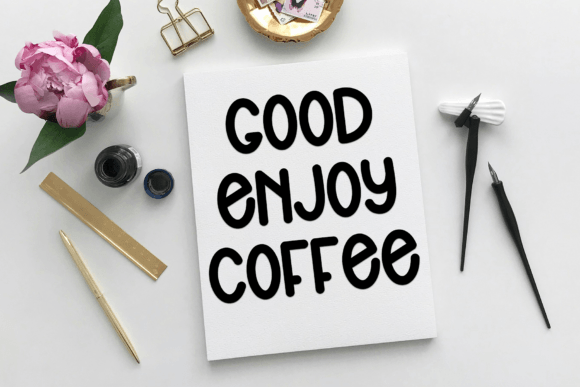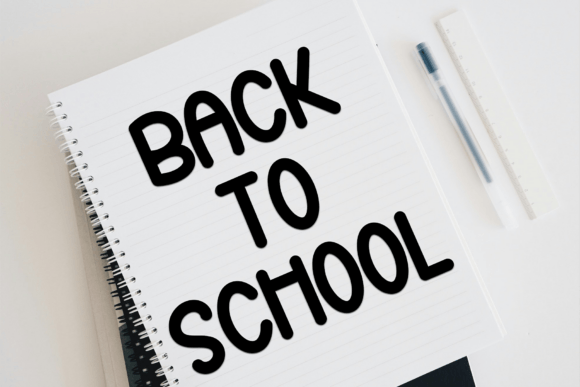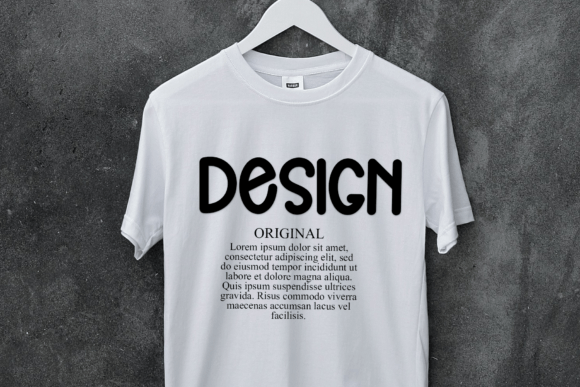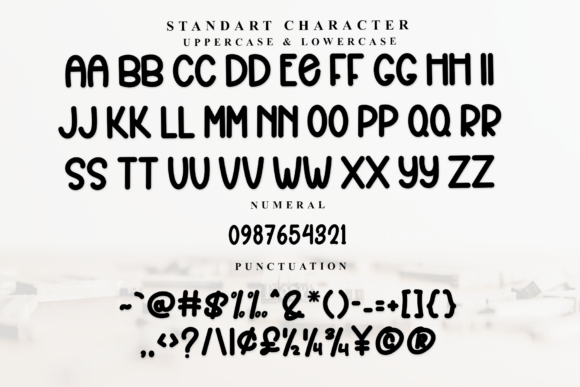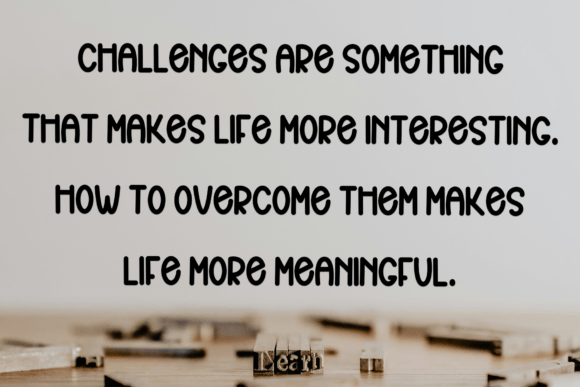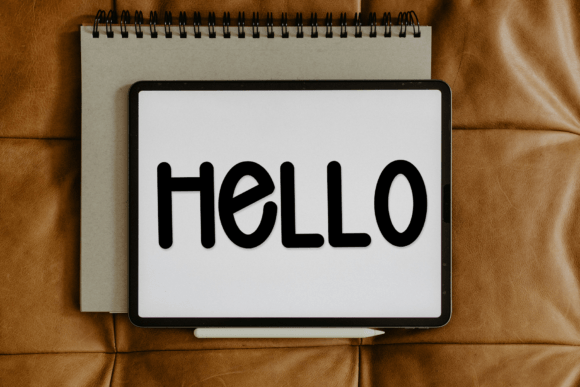
Introducing Conten Creator Font: Elevate Your Designs with Timeless Elegance
In the realm of design, typography plays a pivotal role in conveying messages, evoking emotions, and creating lasting impressions. Among the myriad of fonts available, Conten Creator stands out as a beacon of sophistication and modernity. This trendy handwritten font, with its roots in timeless classic calligraphy, is poised to revolutionize the way designers and crafters approach their projects.
The Essence of Conten Creator Font
Conten Creator is not just a font; it’s an experience. Inspired by the elegance of classic calligraphy, it brings a contemporary atmosphere to the table, making it perfect for designers who seek to infuse their work with a touch of class and sophistication. Its impeccable form ensures that it is versatile enough to be used across various design projects, from branding and advertising to packaging and digital media.
Key Features of Conten Creator
- Trendy and Modern: Despite being inspired by classic calligraphy, Conten Creator boasts a modern look that will make your designs stand out in today’s fast-paced digital landscape.
- Handwritten Elegance: The font’s handwritten nature adds a personal touch to any project, making it more relatable and engaging to the audience.
- Versatility: Conten Creator’s impeccable form and elegant strokes make it suitable for a wide range of applications, from luxury branding to creative crafting.
- Easy to Read: The clarity of the font ensures that your message is conveyed effectively, making it perfect for both digital and print media.
Applications of Conten Creator Font
The versatility of Conten Creator makes it an invaluable asset for designers and crafters across various fields. Here are some of the areas where this font can make a significant impact:
- Branding and Logo Design: Use Conten Creator to create a luxurious and memorable brand identity that resonates with your audience.
- Digital Marketing: Enhance your website, social media posts, and advertisements with a font that exudes elegance and professionalism.
- Packaging Design: Add a touch of sophistication to your product packaging, making it stand out on store shelves.
- Crafting and DIY Projects: Whether you’re creating handmade cards, journals, or decorative items, Conten Creator can add a refined touch to your crafts.
Why Choose Conten Creator?
In a world where design trends are constantly evolving, Conten Creator offers a timeless solution that can adapt to various styles and themes. Its unique blend of classic inspiration and modern flair makes it a valuable addition to any designer’s toolkit. By choosing Conten Creator, you’re not just selecting a font; you’re embracing a design philosophy that values elegance, versatility, and creativity.
Conten Creator Font is more than just a typographical choice; it’s a statement of style and sophistication. Whether you’re a professional designer or a crafting enthusiast, this font has the potential to elevate your projects to new heights. With its trendy yet timeless appeal, Conten Creator is set to become an indispensable part of your creative journey. So, why wait? Explore the possibilities with Conten Creator and discover a world of elegance and class in your designs.